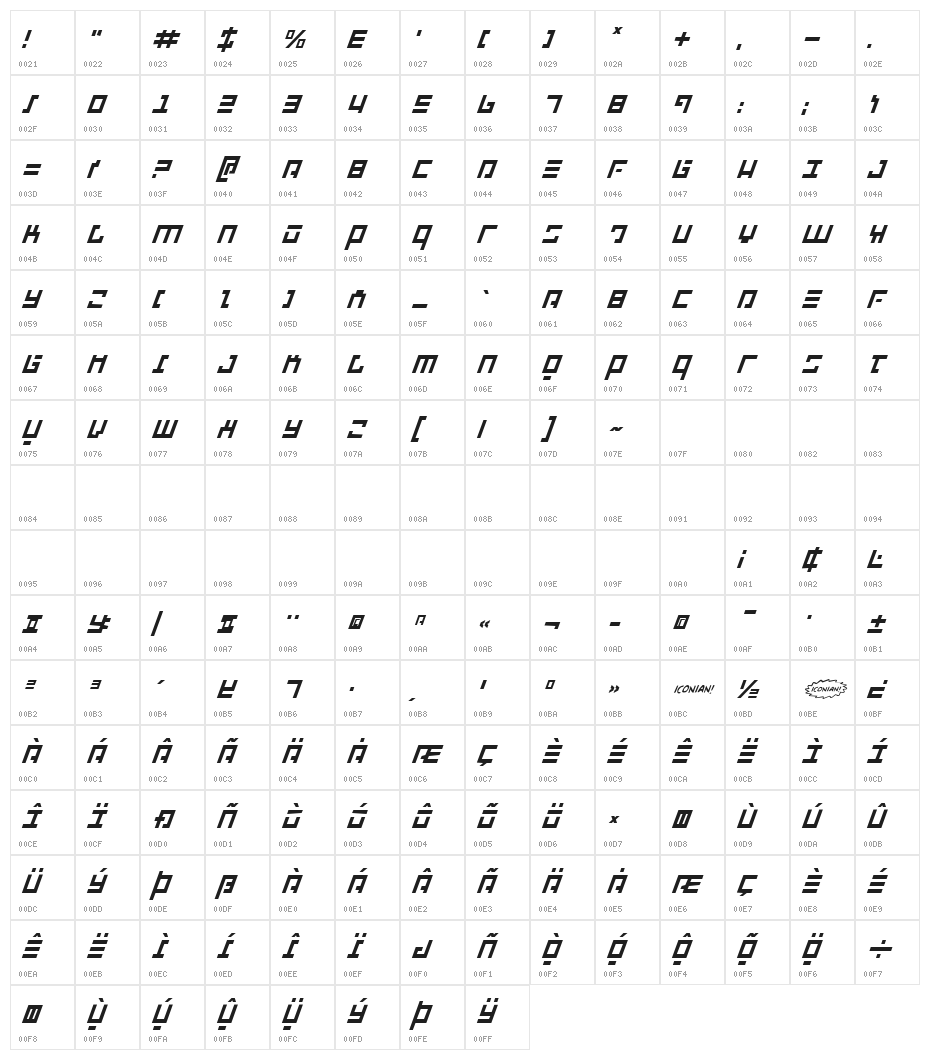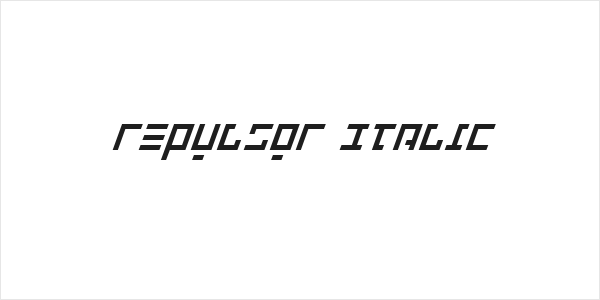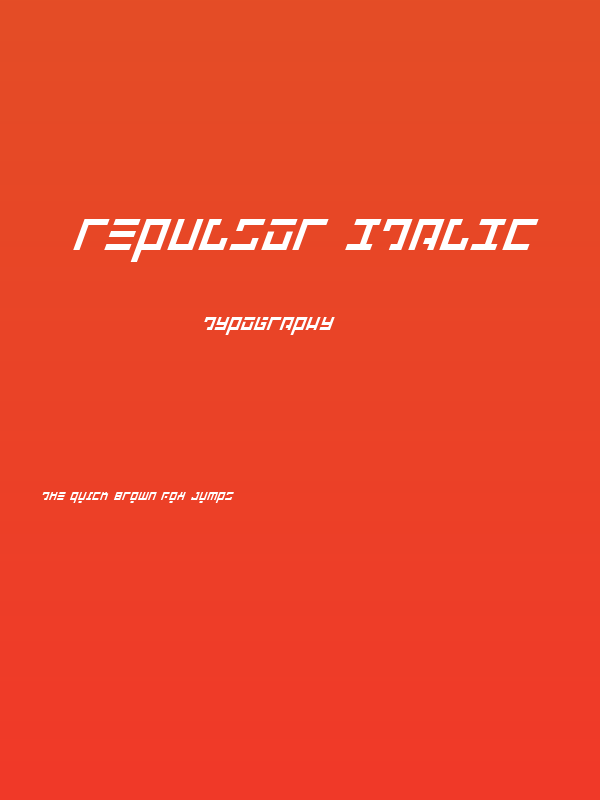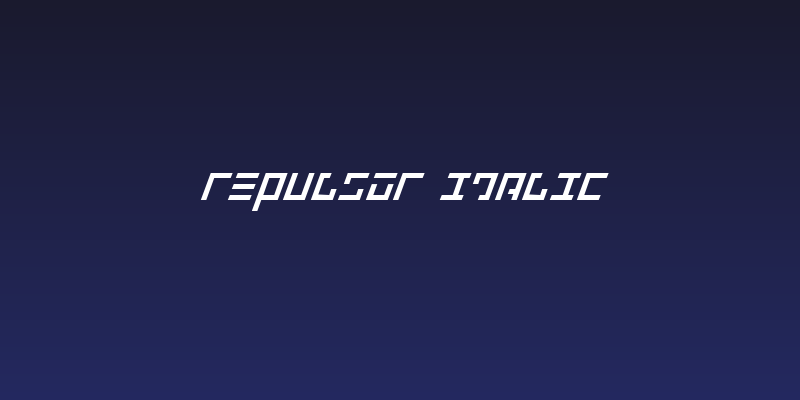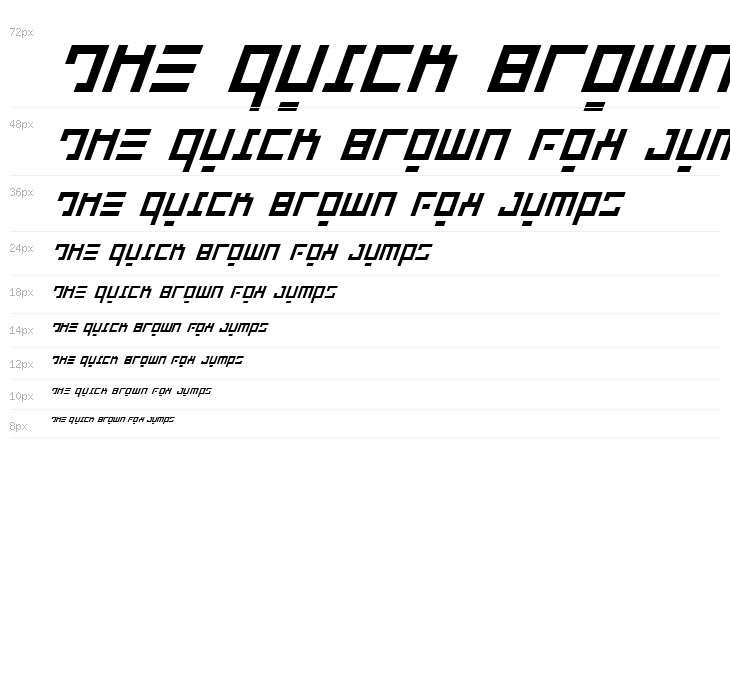
Repulsor Italic Font
Repulsor Italic Description
This font features a futuristic and angular design, characterized by its bold, italicized letters that convey a sense of speed and modernity. The sharp edges and geometric shapes give it a distinct, tech-inspired appearance. Each character is designed with a consistent slant, enhancing the dynamic feel of the typeface. The uppercase and lowercase letters maintain a uniform style, while the numerals and special characters integrate seamlessly with the overall aesthetic. The font's structure is solid and impactful, making it suitable for projects that require a strong visual presence.
| Proposed Projects | Ideal for technology branding, video game titles, sci-fi movie posters, and modern digital interfaces. |